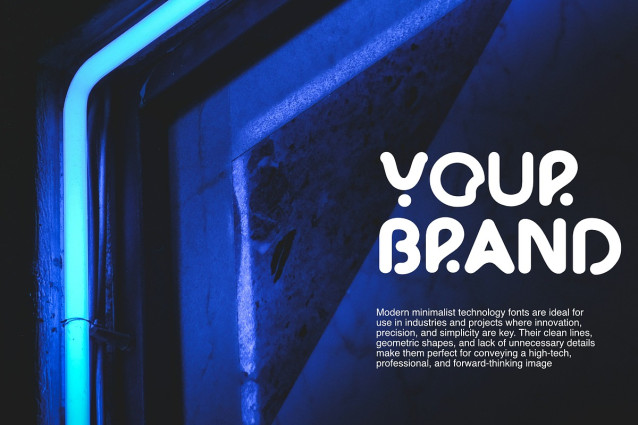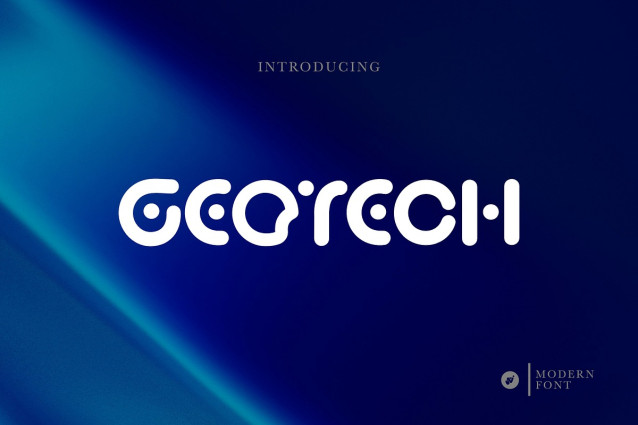
Geotech Font
Geotech Font – This modern and minimalist tech font is suitable for various design needs that want to convey a futuristic, innovative, and clean feel.